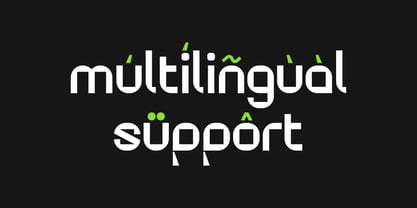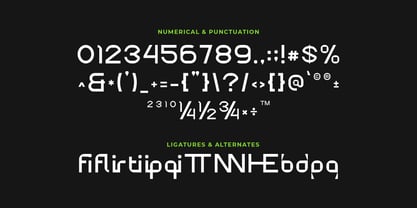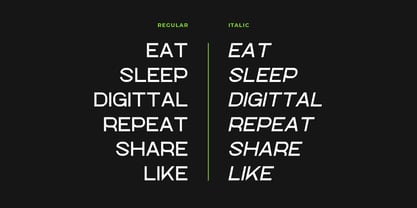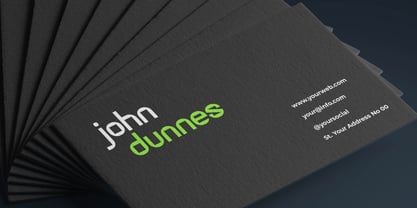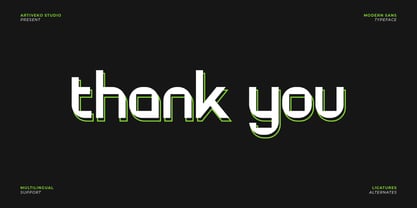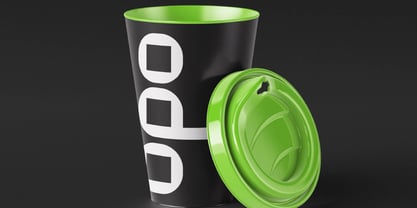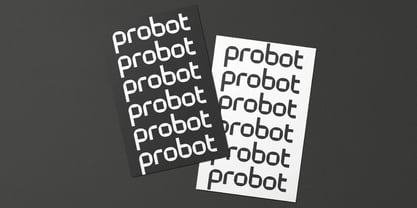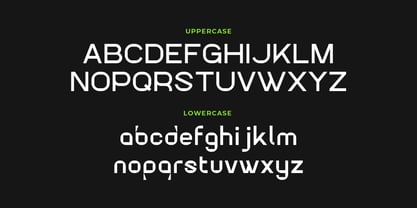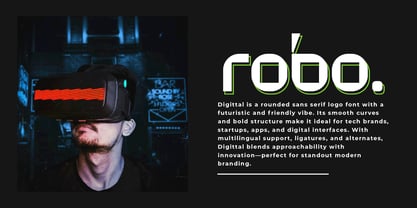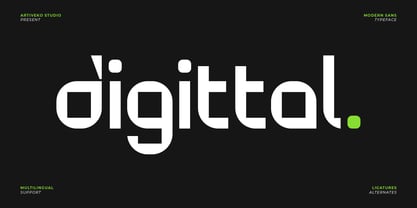
Digittal
por Artiveko
La familia tipográfica Digittal fue diseñada por Iwan Alwan y publicada por Artiveko. Digittal contiene 2 estilos y opciones de paquete familiar.
Digittal is a rounded sans serif logo font with a futuristic and friendly vibe. Its smooth curves and bold structure make it ideal for tech brands, startups, apps, and digital interfaces. With multilingual support, ligatures, and alternates, Digittal blends approachability with innovation—perfect for standout modern branding.